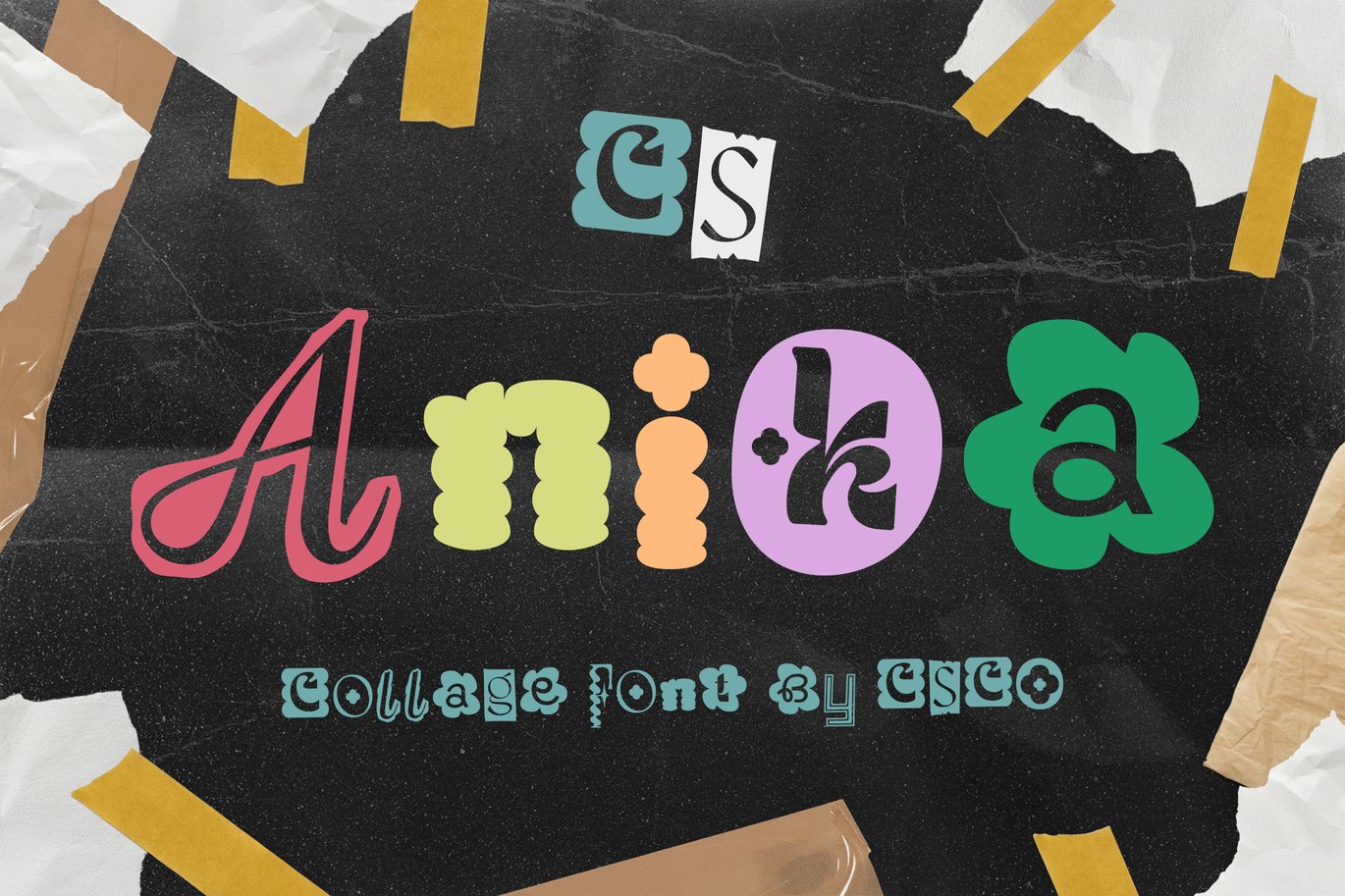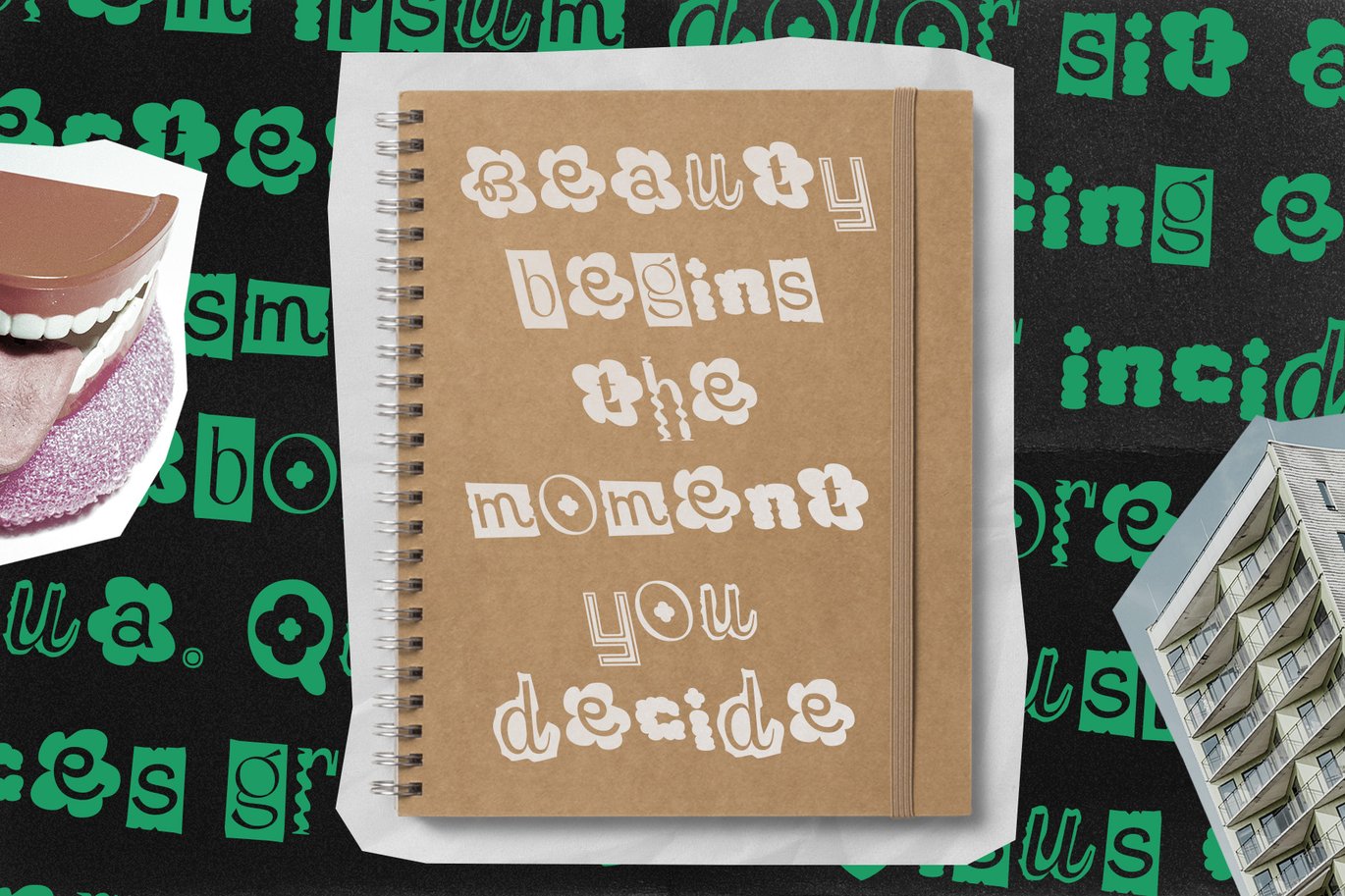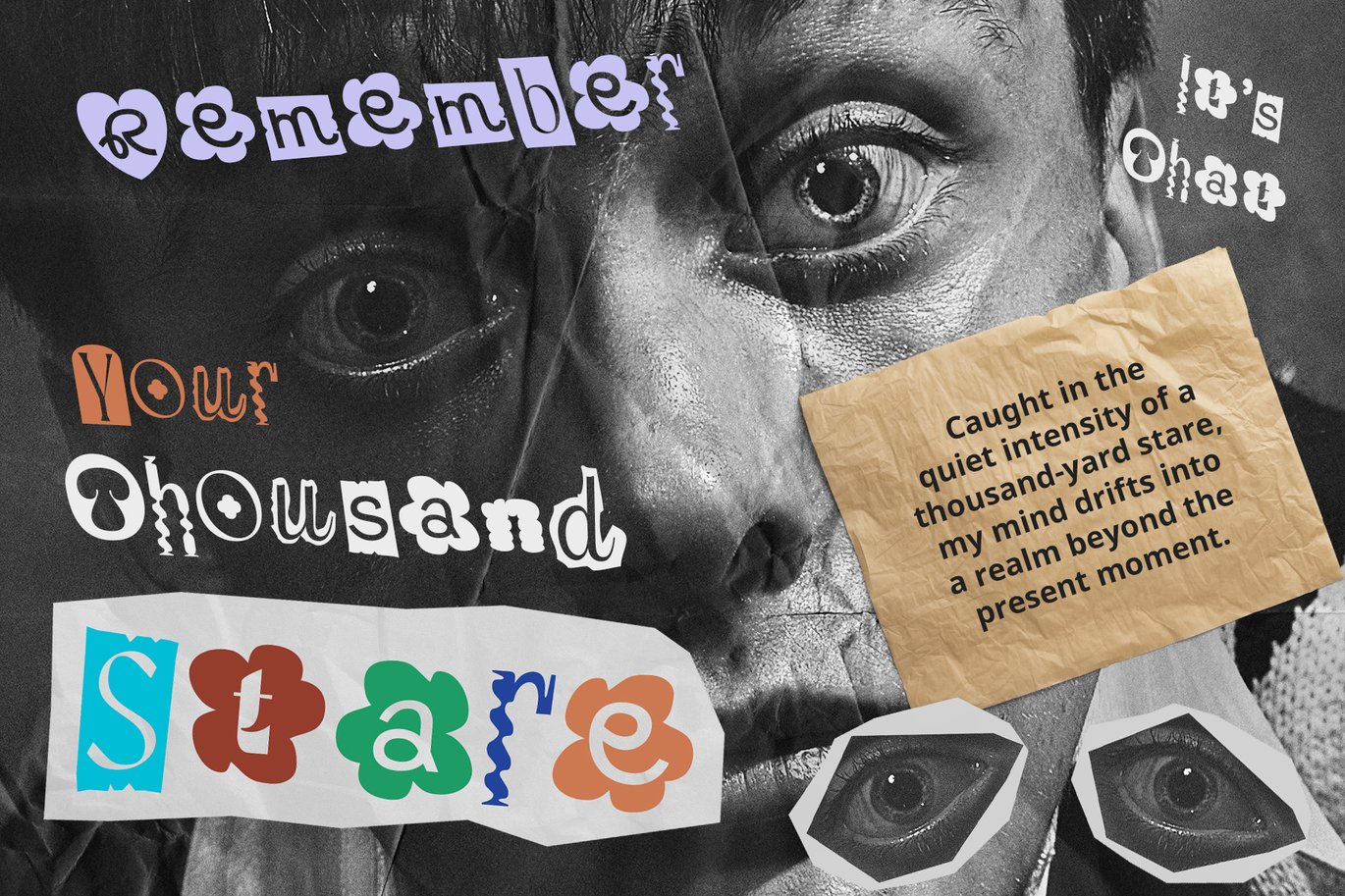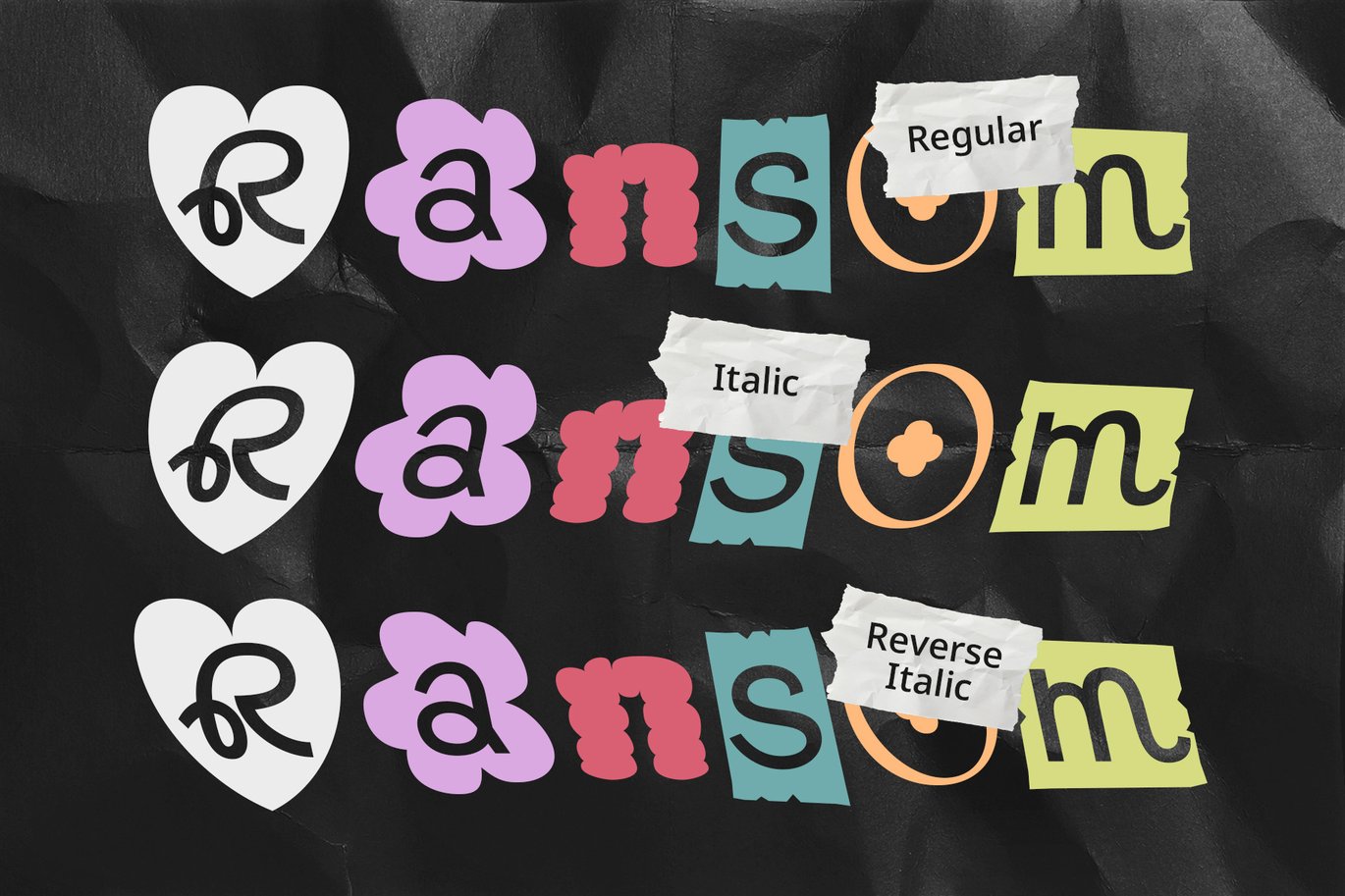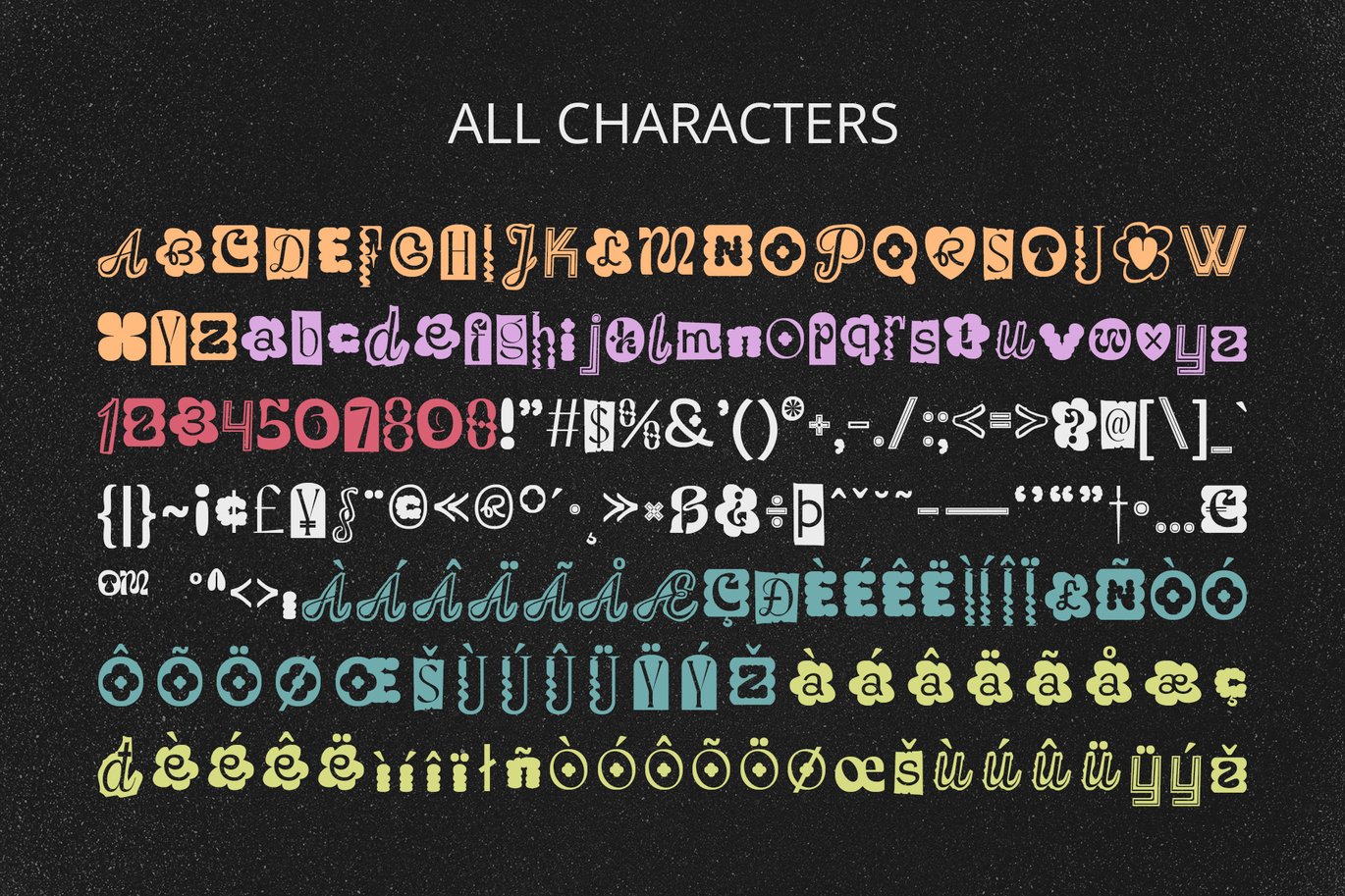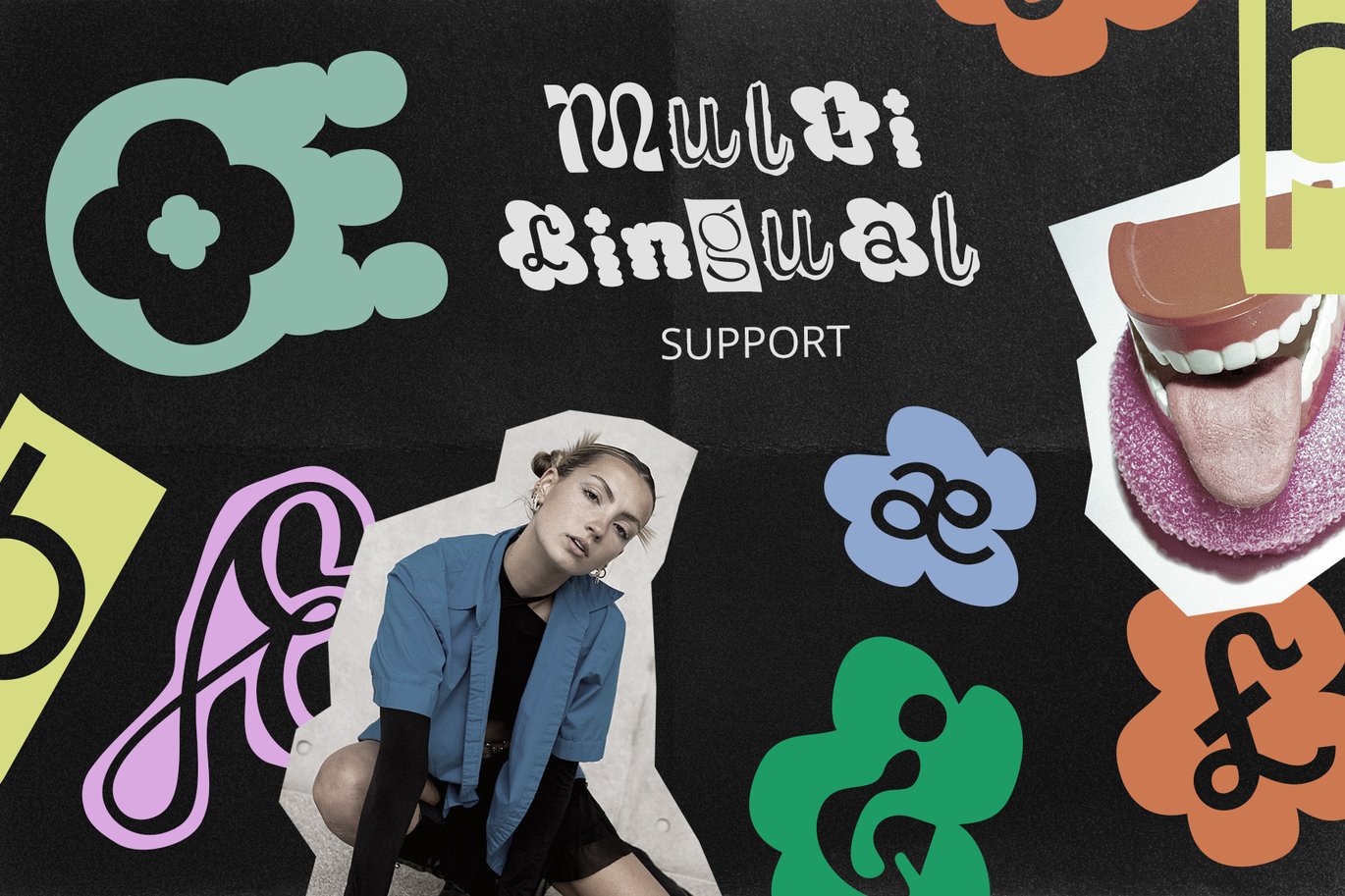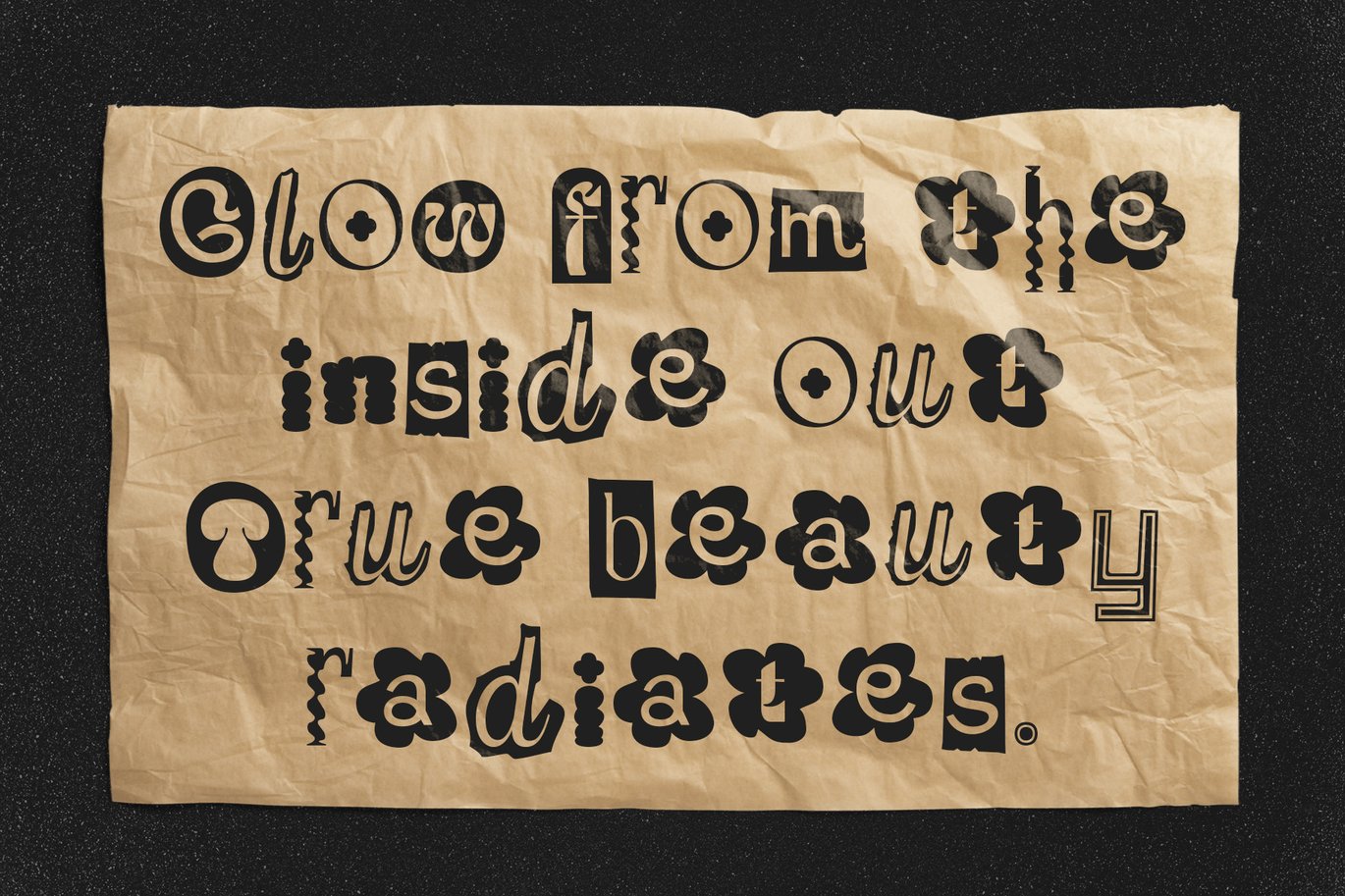
Anika – Collage Font
CS Anika – Collage Font: Where Creativity Meets Eclectic Design
Display Font with Collage-Style Characters
CS Anika is a captivating display font featuring collage-style characters that appear as if they’ve been artfully assembled from various cut-out pieces. This dynamic and eclectic design creates a striking, bold look that instantly draws attention and sparks curiosity, making it perfect for designs that aim to make a statement.
Funky and Bold Design
With its funky and bold impression, CS Anika injects energy and playfulness into any project. The varied textures and colors of the characters create a vibrant visual experience, ideal for applications that demand a touch of whimsy. Whether used for posters, flyers, or event branding, this font captures the spirit of fun and creativity, ensuring that your designs stand out in any setting.
Perfect for Expressing Edginess
CS Anika excels in projects that seek to convey an edgy, artistic character. Its unique collage style allows designers to explore unconventional layouts and compositions, making it a perfect choice for album covers, contemporary art promotions, and innovative branding strategies. This font invites viewers to engage with the design, enhancing the overall narrative of your project.